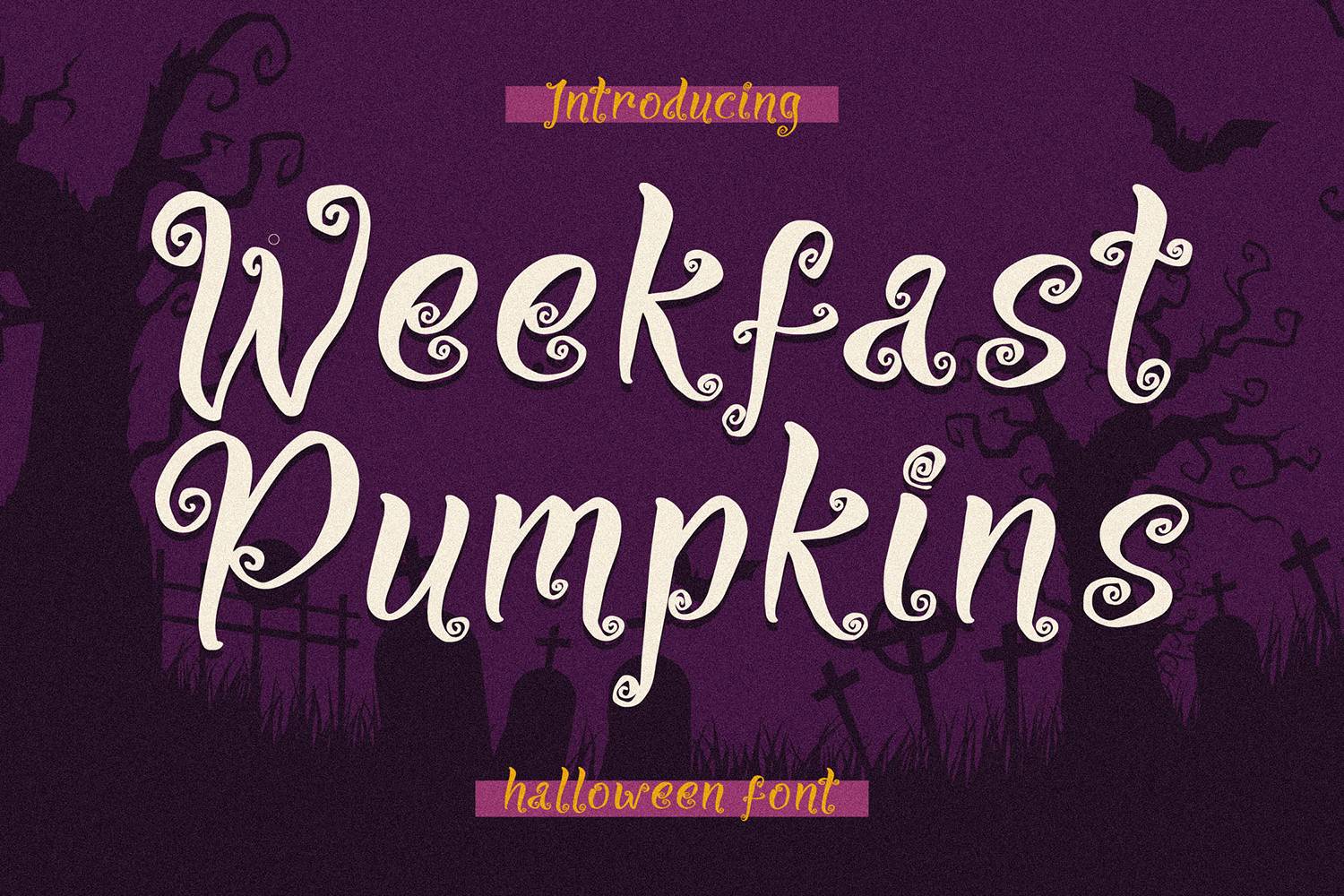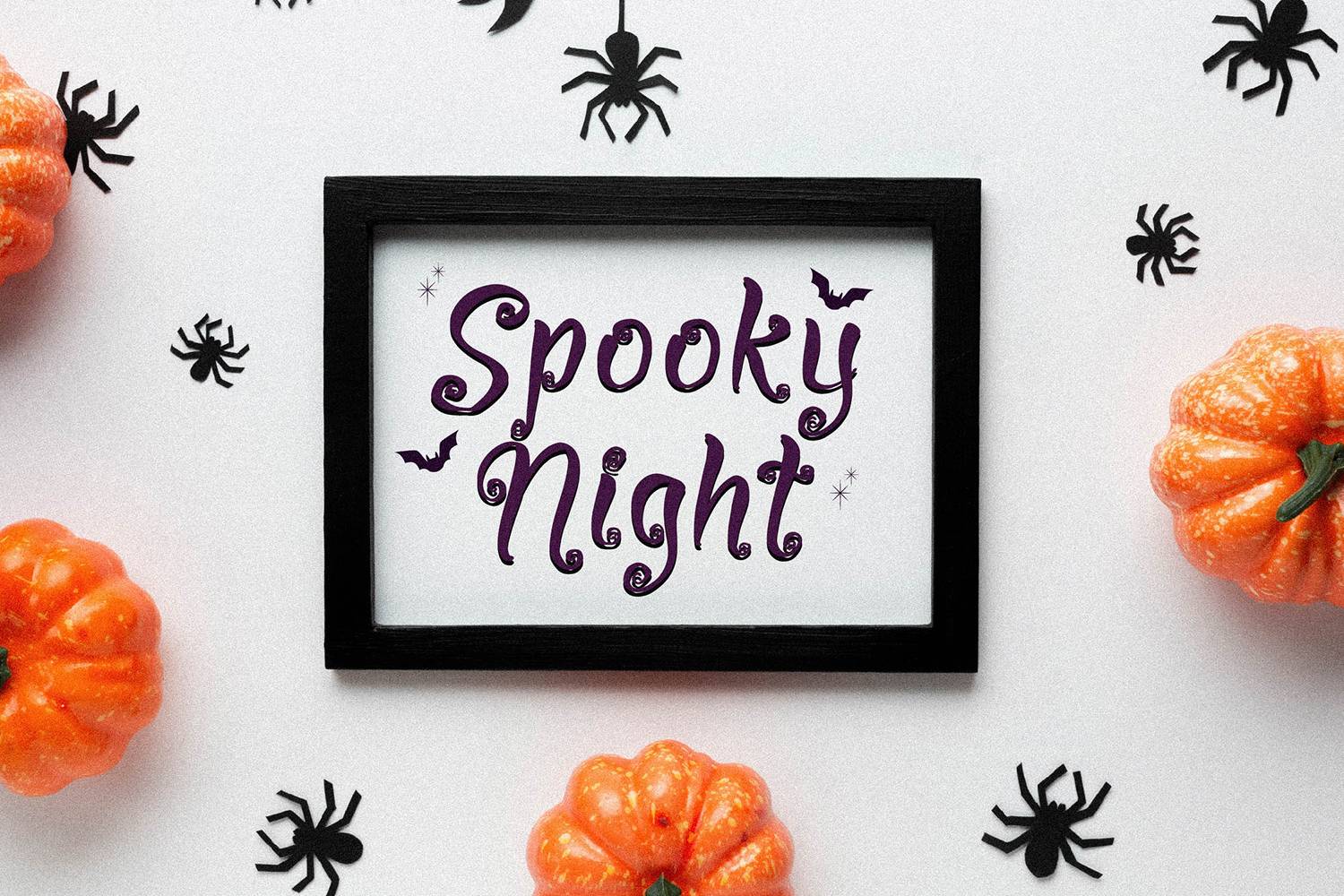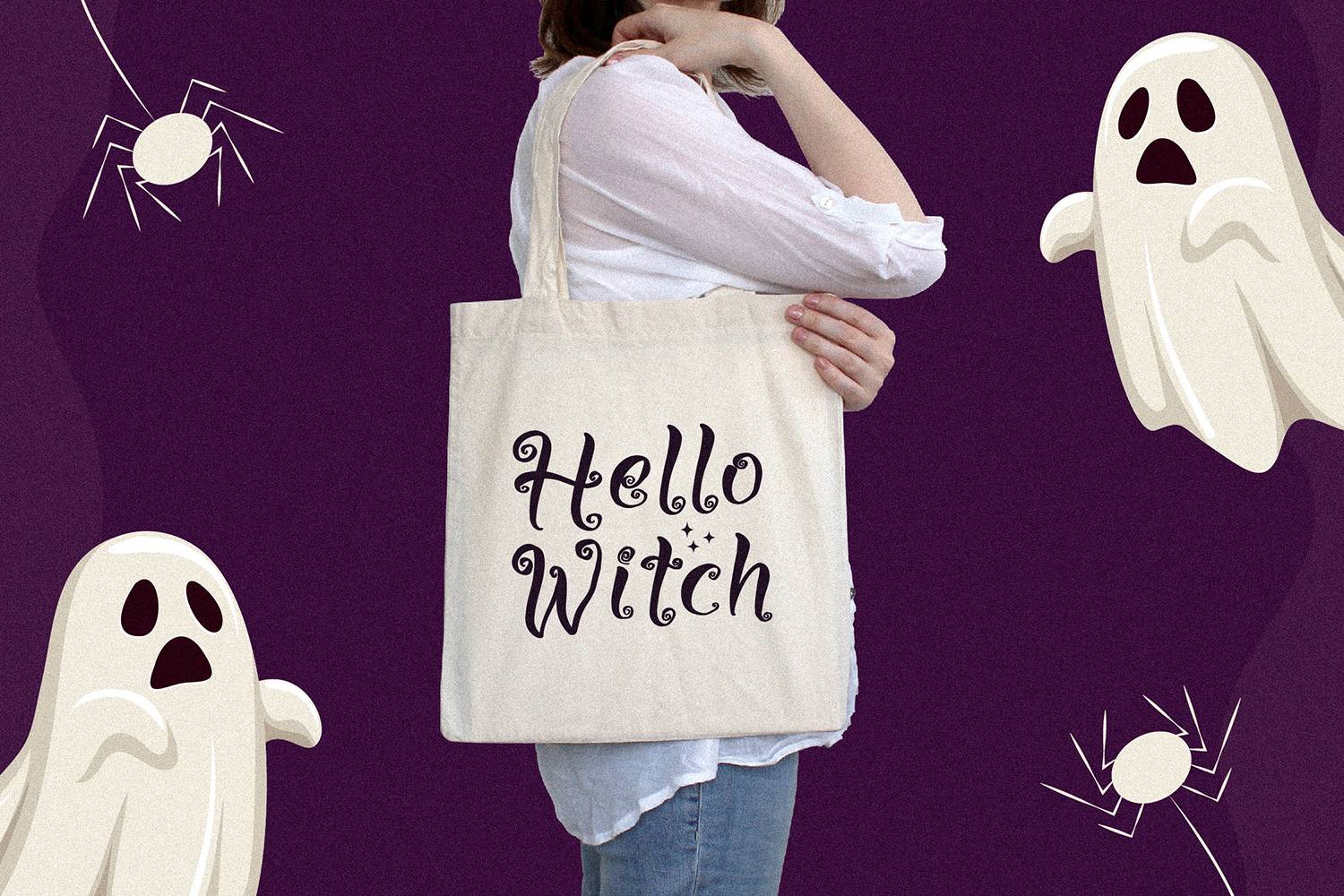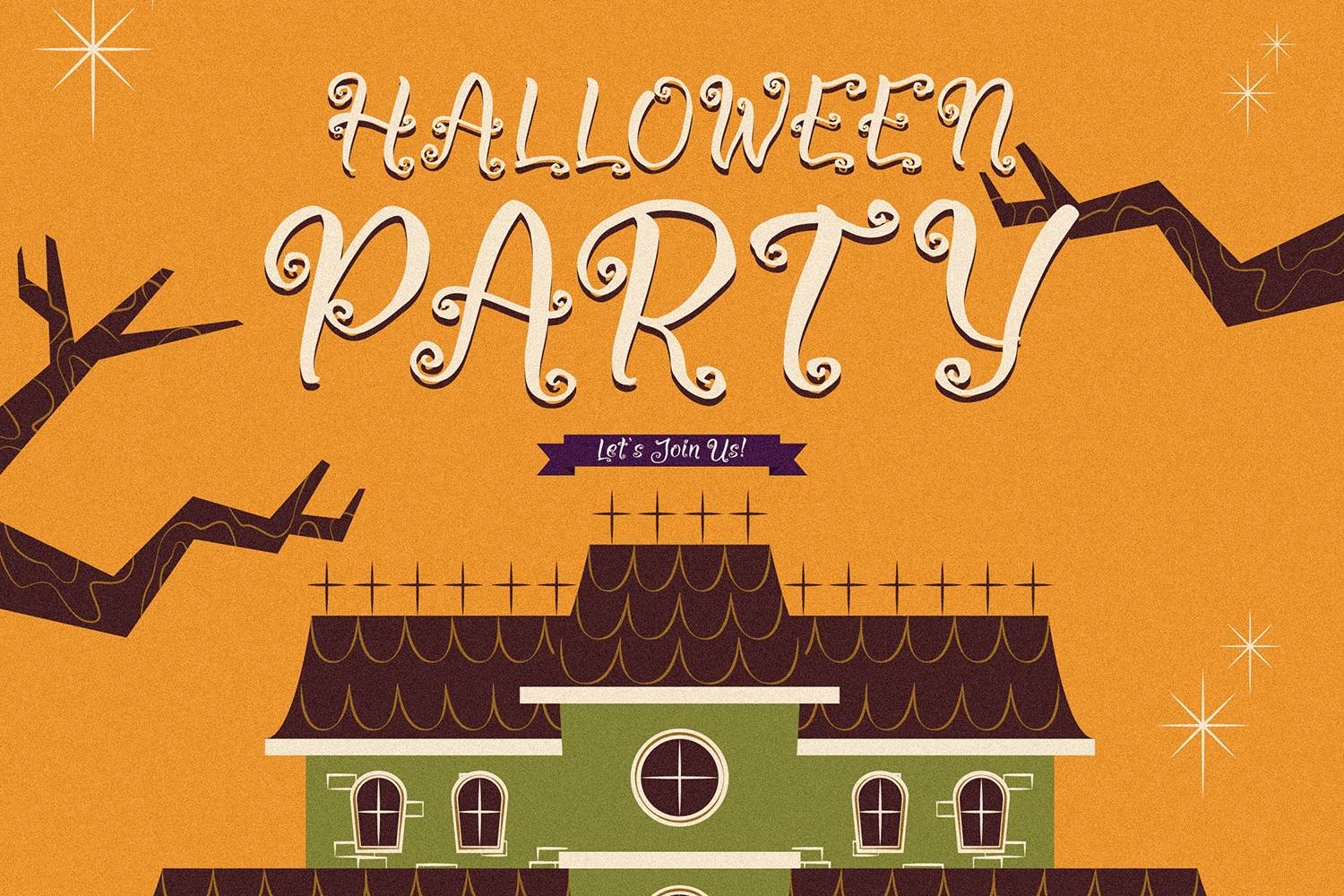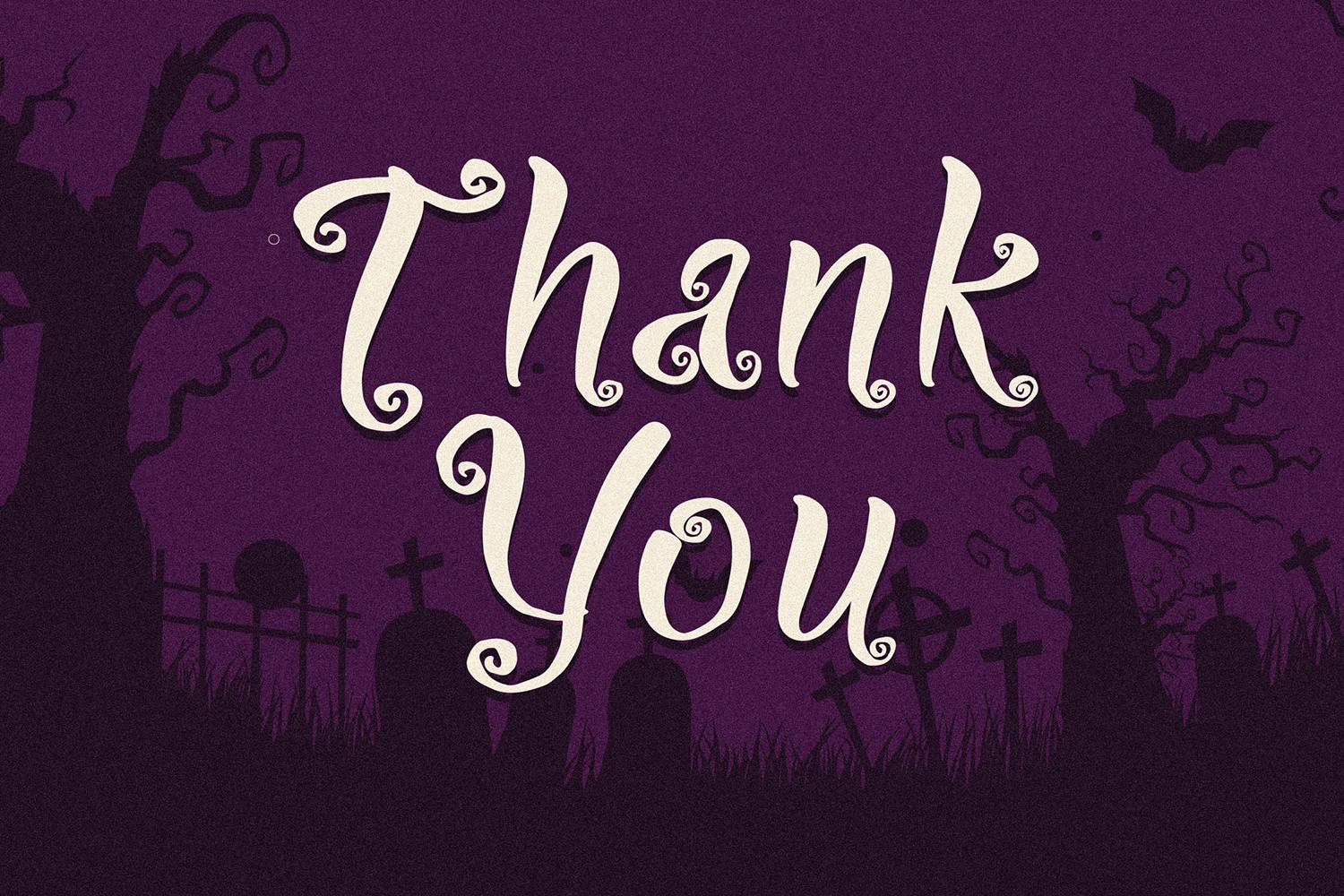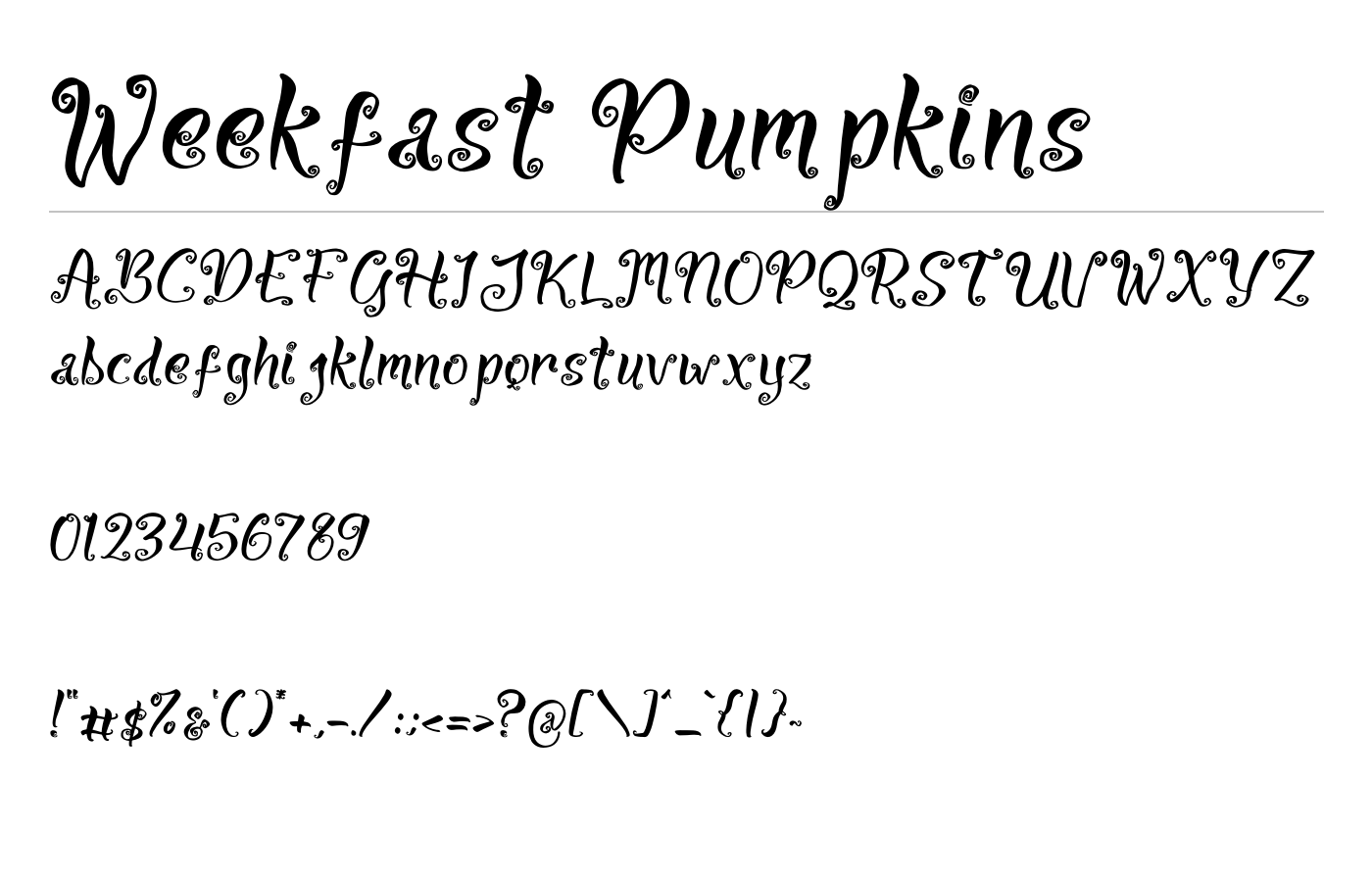
Weekfast Pumpkins is a playful handwritten script font with whimsical, curly ornaments on many letterforms that give it a fun and quirky personality. Its moderate weight and lively strokes create an inviting, casual feel, making it perfect for festive or creative projects like party invitations, seasonal branding, and lighthearted headlines. This font brings a sense of warmth and cheer, ideal for designs that want to evoke joy and charm.
Weekfast Pumpkins Font